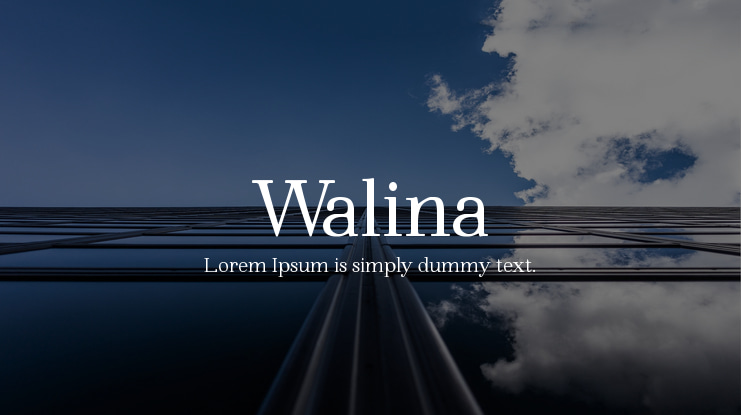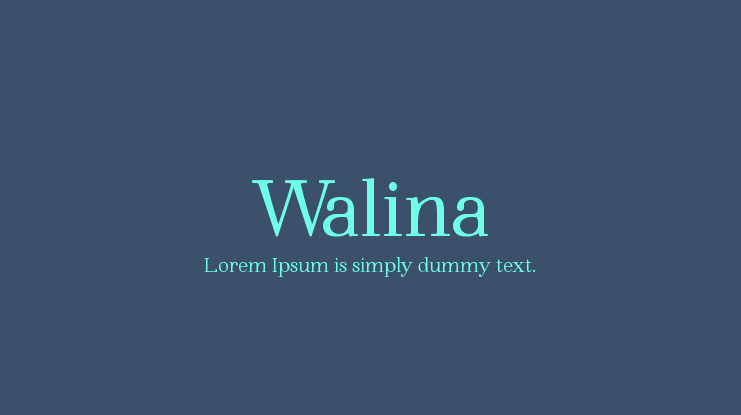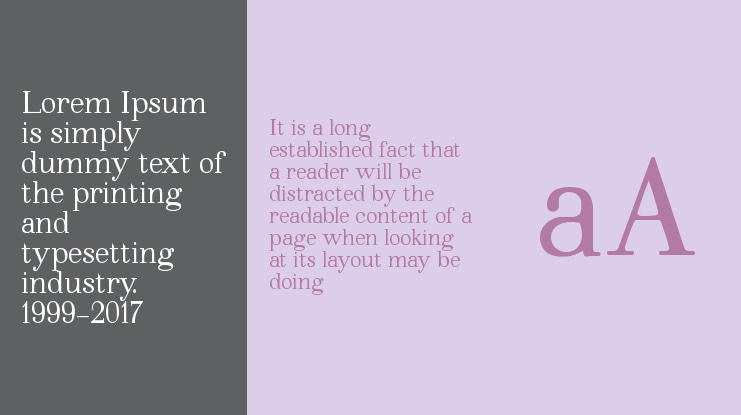
Walina Font Family
Adrián Yanes Márquez
Walina is a Roman typeface designed for use in long texts and posters. It is a typeface with character . It is available in Regular and Bold . I hope you find it useful and please contact me for the license and supports the author. Thank you.